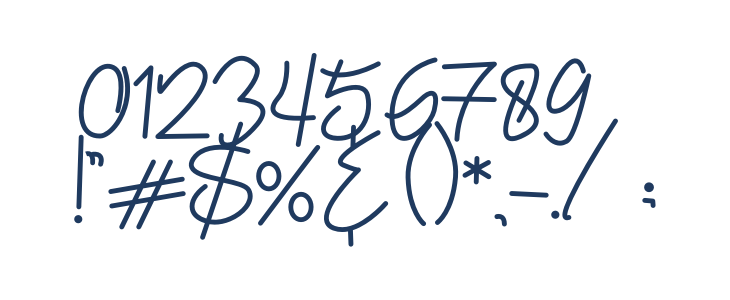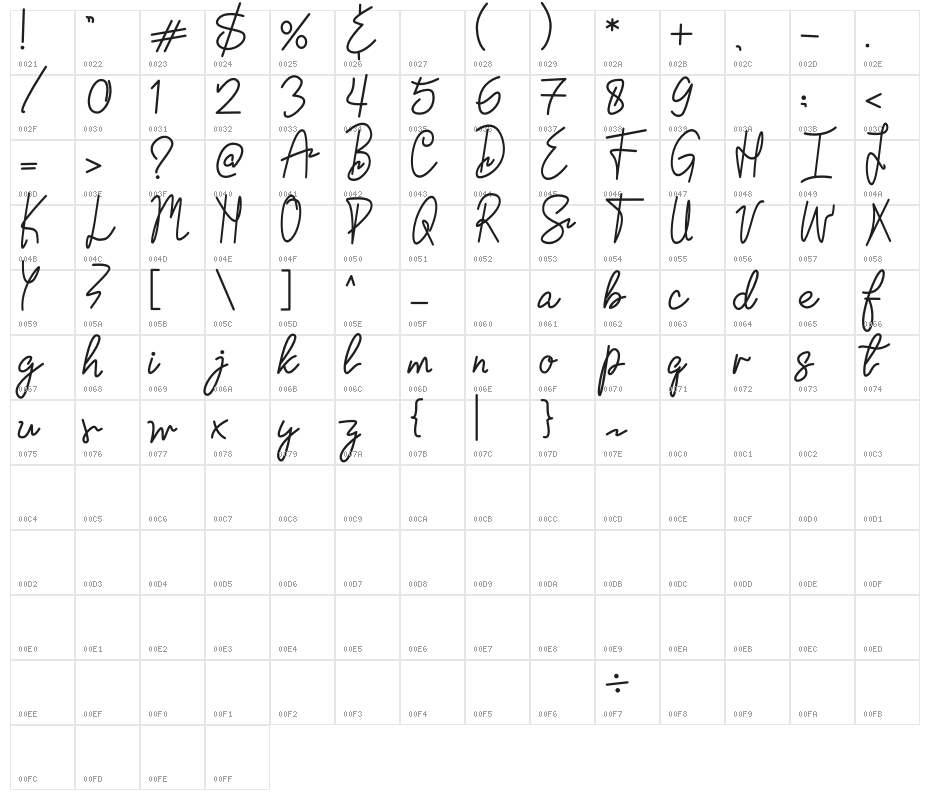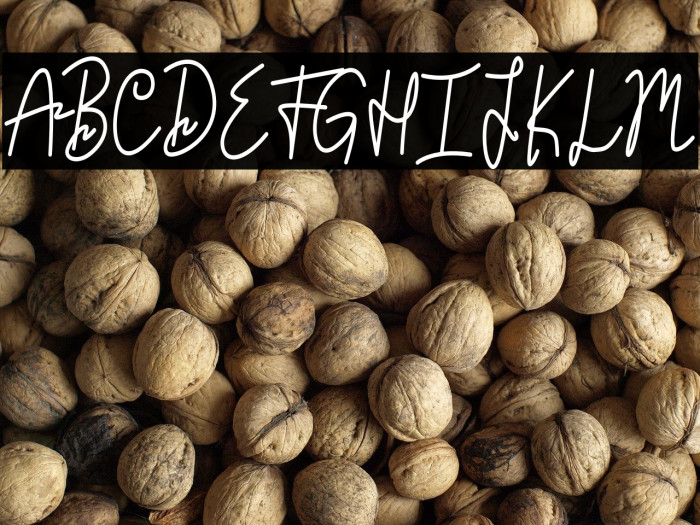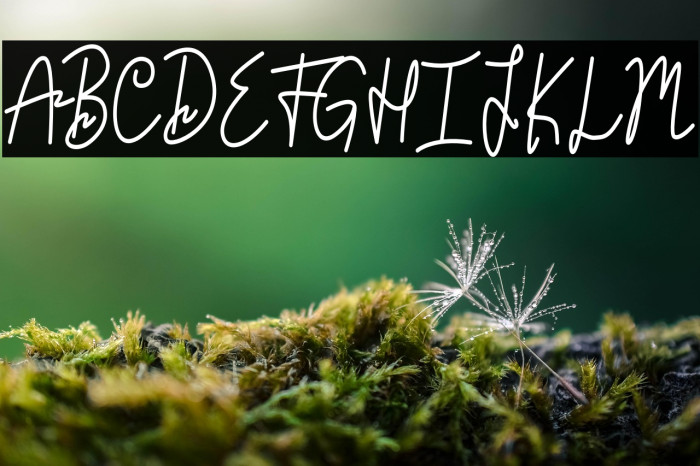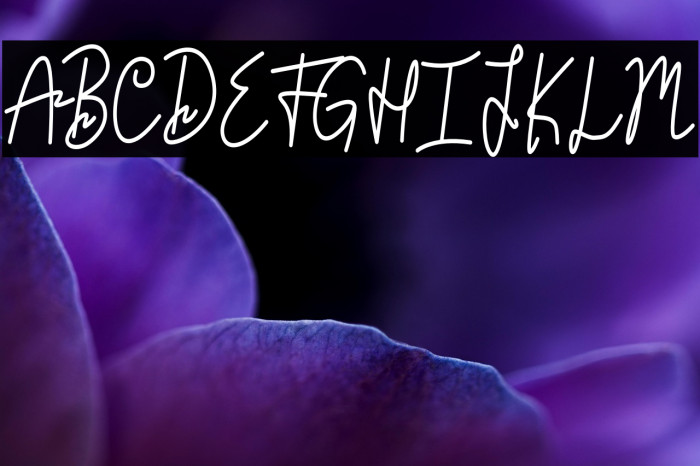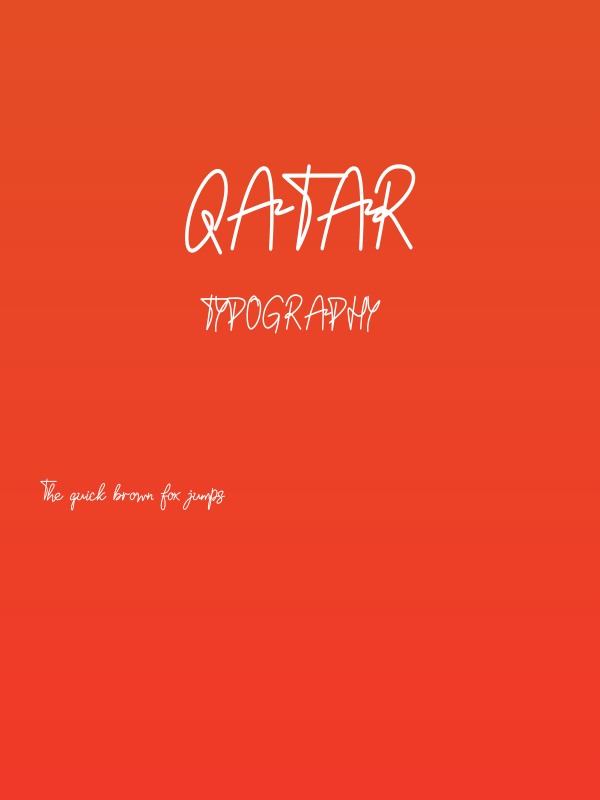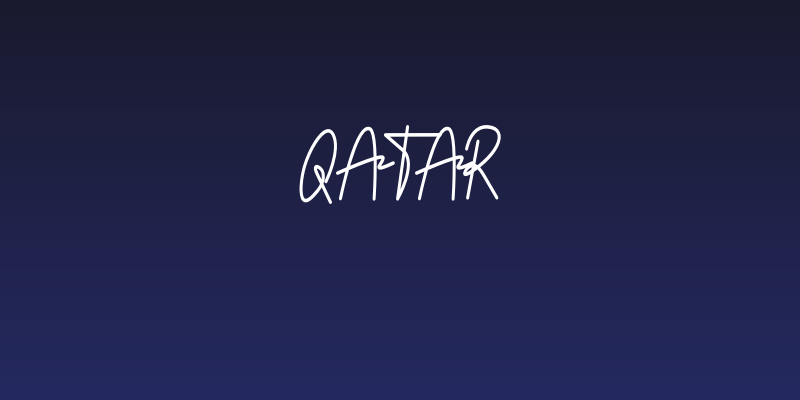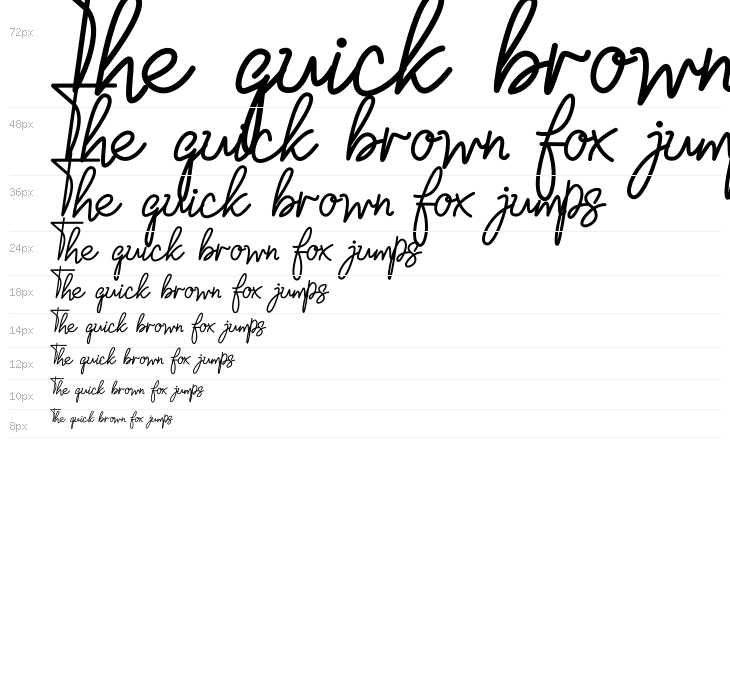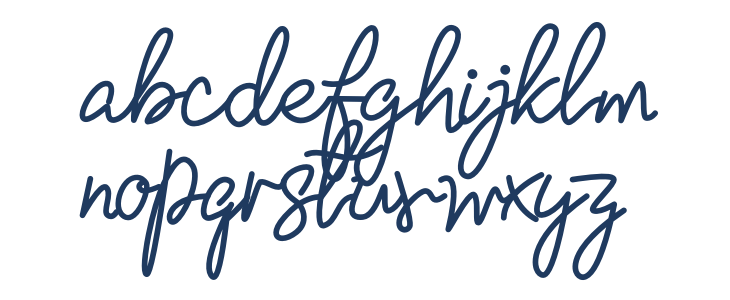
Qatar Font
Qatar Description
This font features a lively and dynamic handwritten style, characterized by its fluid and continuous strokes. The uppercase letters are tall and slightly narrow, with a playful tilt that adds a sense of movement. The lowercase letters maintain a consistent flow, with rounded forms and smooth connections between characters. Numbers are bold and clear, matching the overall energetic feel of the font. Special characters are creatively integrated, maintaining the handwritten aesthetic. This font is ideal for projects that require a personal and informal touch, such as invitations, greeting cards, or creative branding.
| Use Case | Logos, Headlines, Informal Text |
| Proposed Projects | Ideal for invitations, greeting cards, creative branding, and personal projects. |